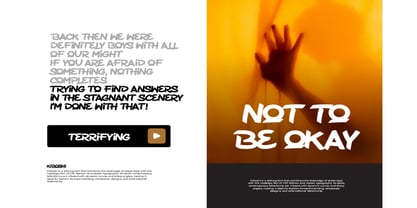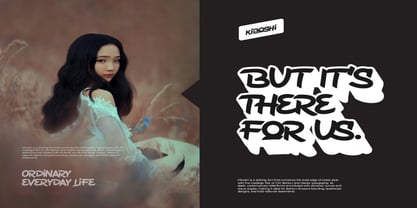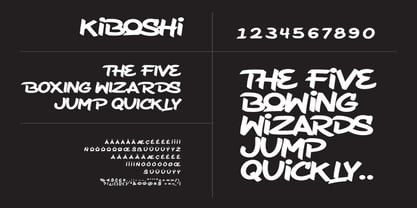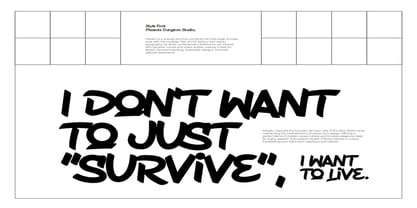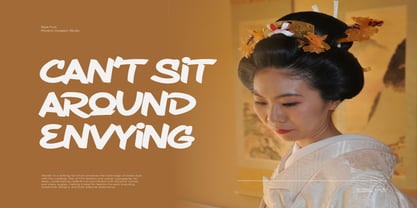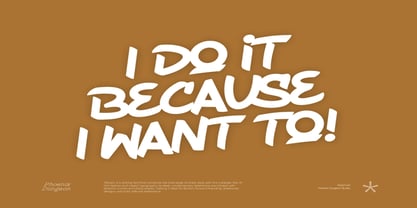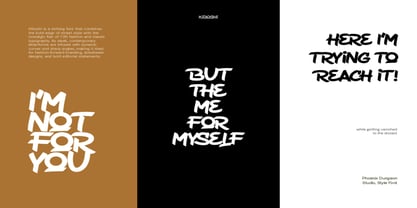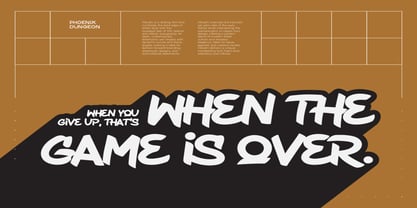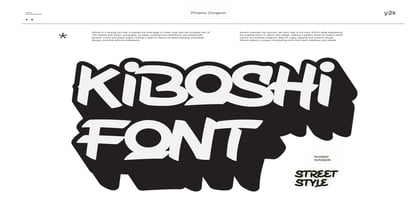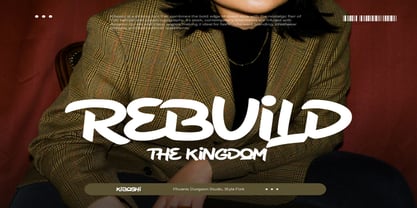
Kiboshi
The Kiboshi Font Family was designed by Alif Naufal Muzakki and published by Phoenix Group. Kiboshi contains 1 styles. More about this family
Kiboshi is a striking font that combines the bold edge of street style with the nostalgic flair of Y2K fashion and classic typography. Its sleek, contemporary letterforms are infused with dynamic curves and sharp angles, making it ideal for fashion-forward branding, streetwear designs, and bold editorial statements. Kiboshi channels the futuristic yet retro vibe of the early 2000s while maintaining the sophistication of classic font design, offering a perfect blend of modern street culture and timeless elegance. Ideal for logos, apparel, and creative visuals, Kiboshi delivers a unique, trendsetting look that’s both rebellious and refined.